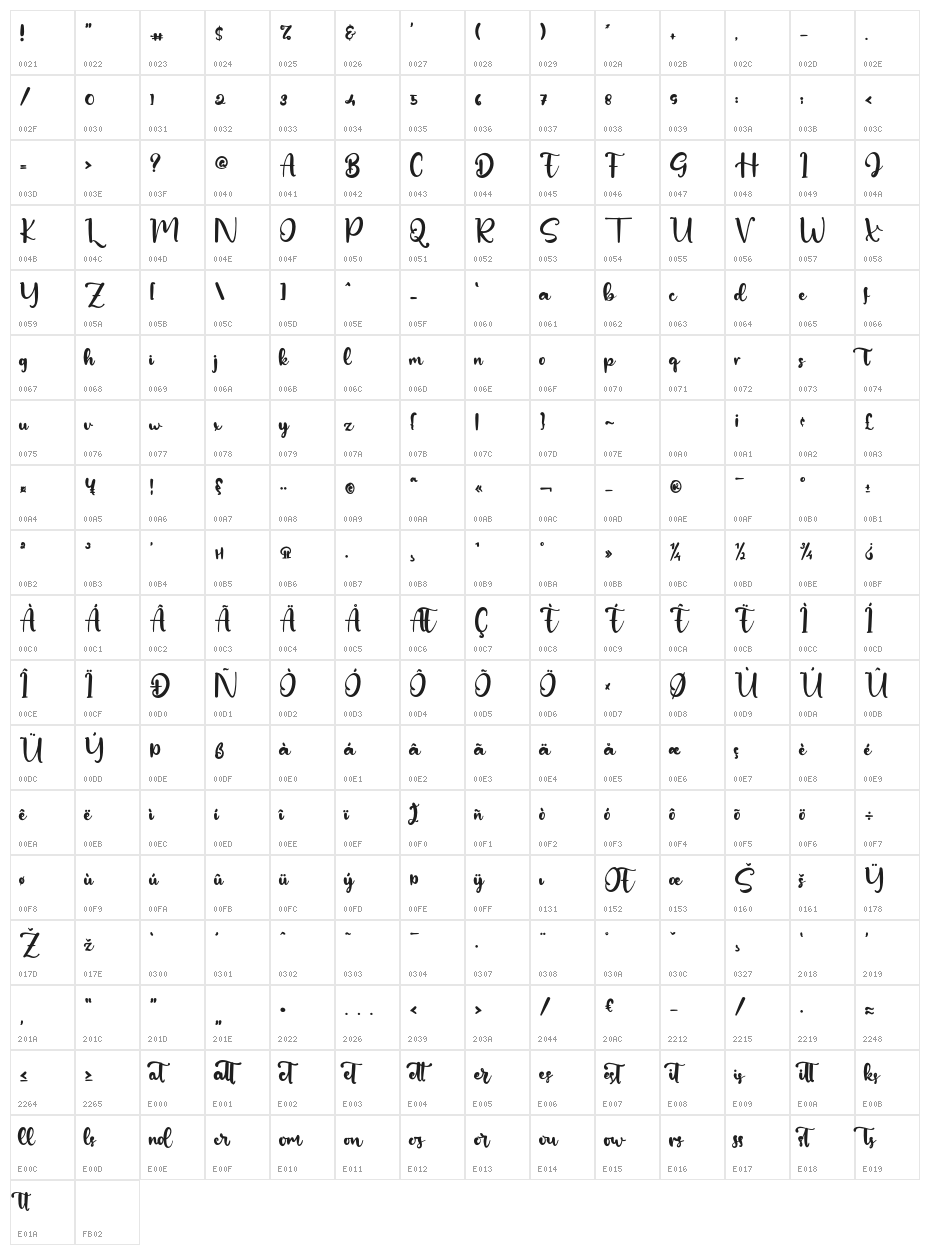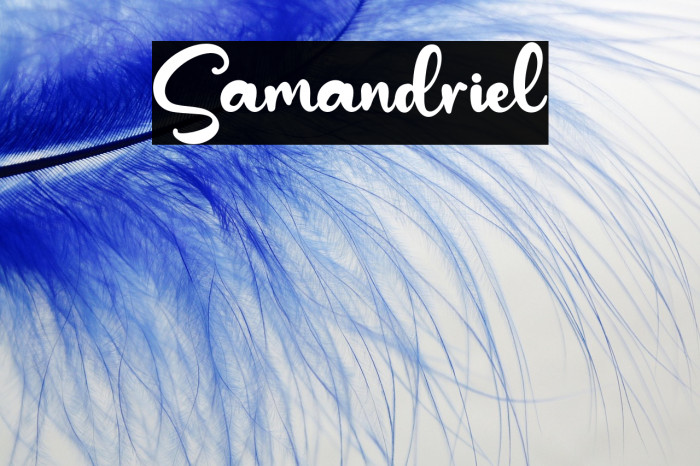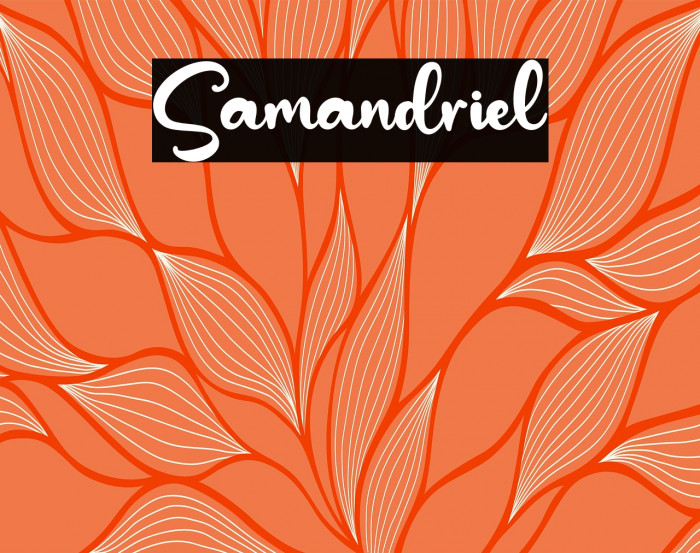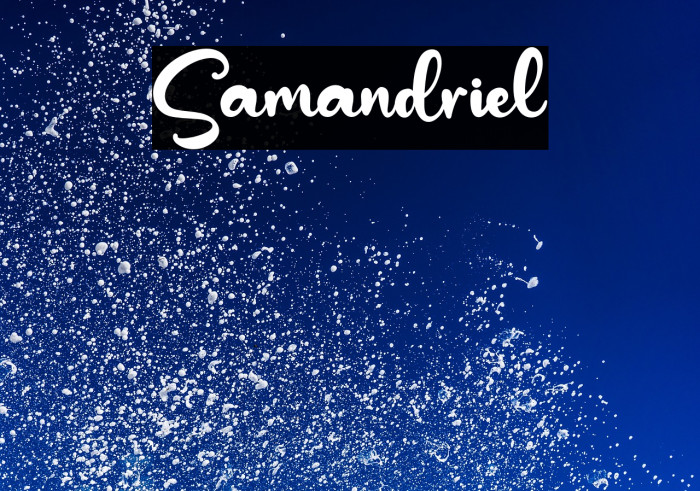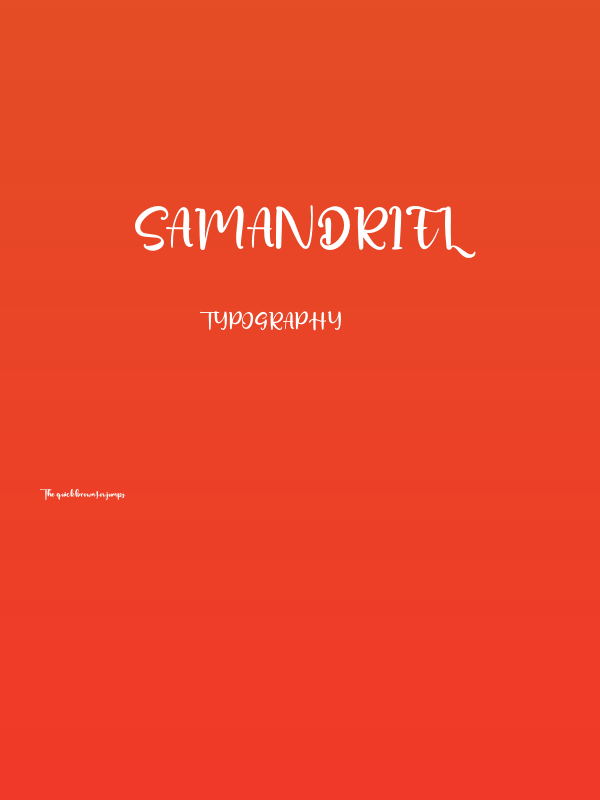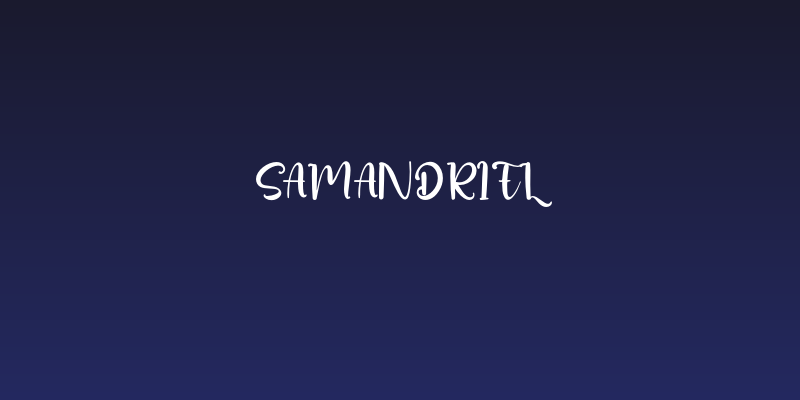
Samandriel Font
Samandriel Description
This font features a playful and elegant script style with a handwritten appearance. The uppercase letters are bold and flowing, with a slight slant that adds a dynamic feel. The lowercase letters are more compact, maintaining the same fluidity and charm. The numerals are consistent with the overall style, offering a cohesive look. Special characters are designed with the same attention to detail, ensuring they blend seamlessly with the rest of the font. The strokes are smooth and well-defined, giving the font a polished and professional appearance. This font is versatile, suitable for a variety of creative projects.